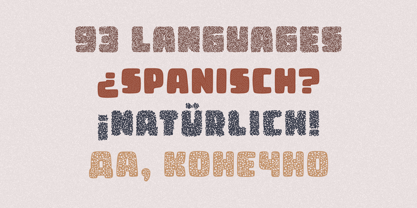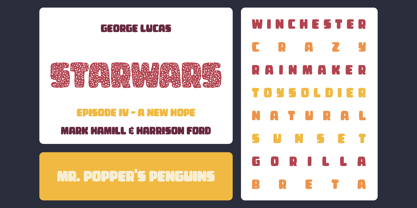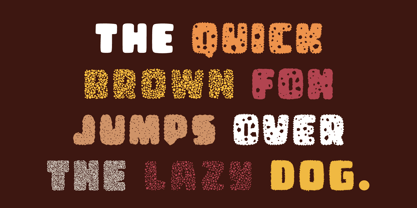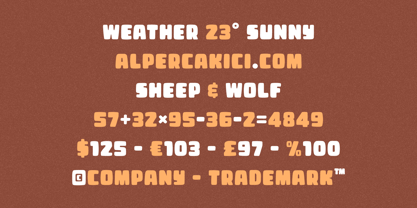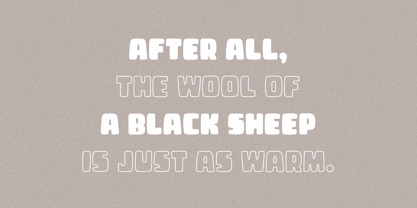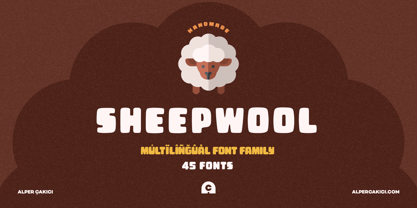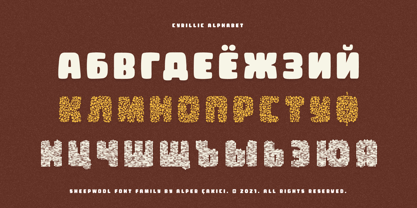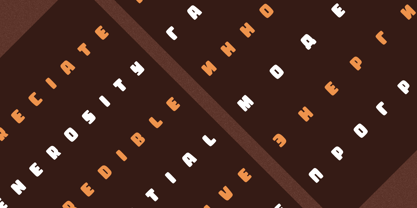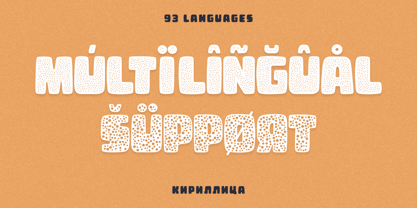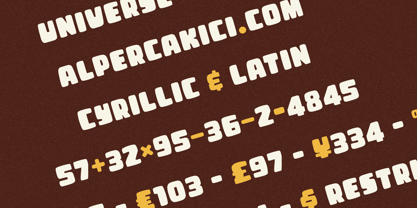
Sheepwool
by AlperCakici
The Sheepwool Font Family was designed by Alper Çakıcı and published by AlperCakici. Sheepwool contains 45 styles and family package options.
Sheepwool is a playful, display font with excellent kerning, making it ideal for both digital and print use. It features full support for the Cyrillic language, allowing for seamless multilingual communication. Sheepwool's unique design combines classic proportions with a contemporary feel, making it stand out from other same categories fonts.